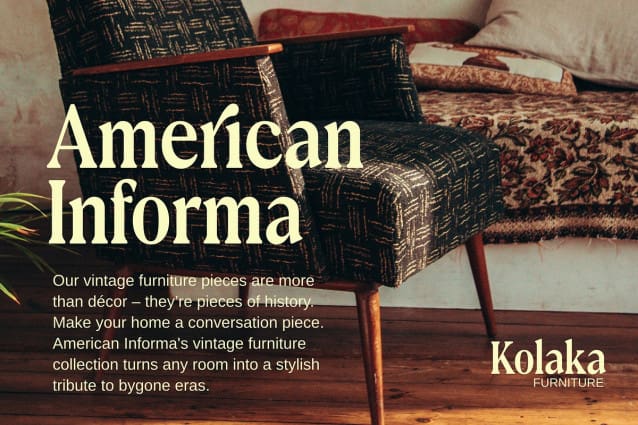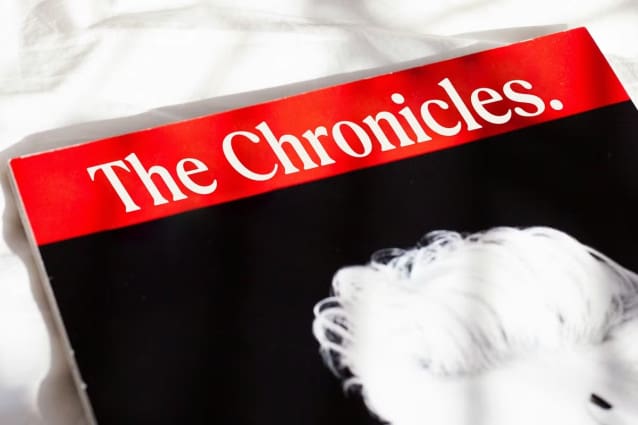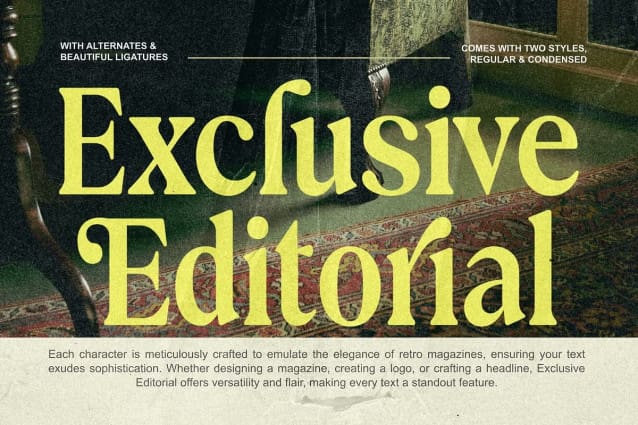
Exclusive Editorial Font
Exclusive Editorial Font is a serif typeface with a retro style that will take you to the 80s. also one that will definitely make your design stand out. A great combination of regular and Condensed styles that looks great in both large and small sizes. It is also equipped with alternatives and fasteners to give an elegant impression while adding a cheerful impression. Exclusive Editorial Font is a great choice especially in pop and retro art themes and other projects.